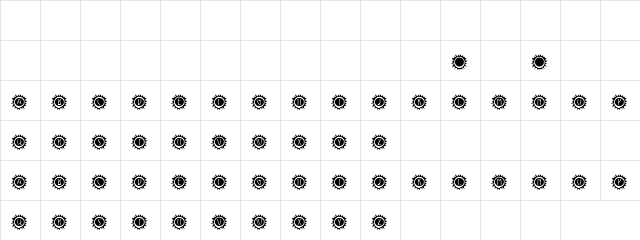
Digital Garden Regular
Design Context for Digital Garden Typeface
Digital Garden channels digital-age aesthetics through its sharp, structured letterforms — ideal for brands that want to signal innovation.
Pro Tip: Try Digital Garden with generous letter-spacing in UI labels and navigation — the geometric forms benefit from room to breathe.